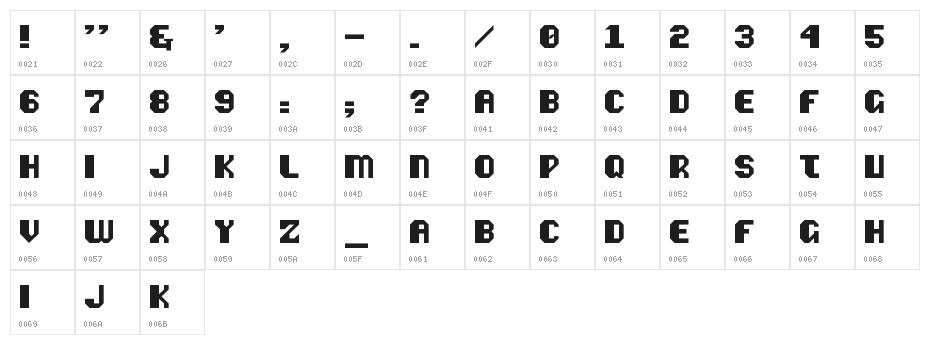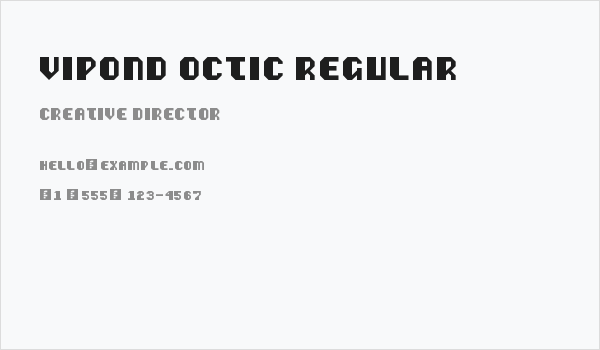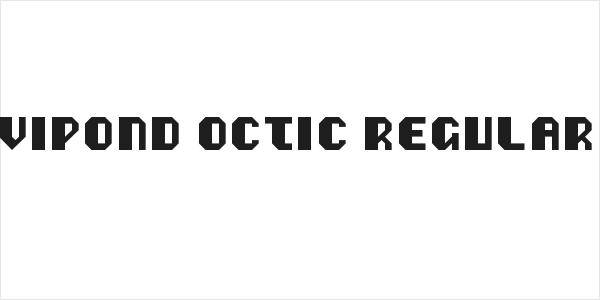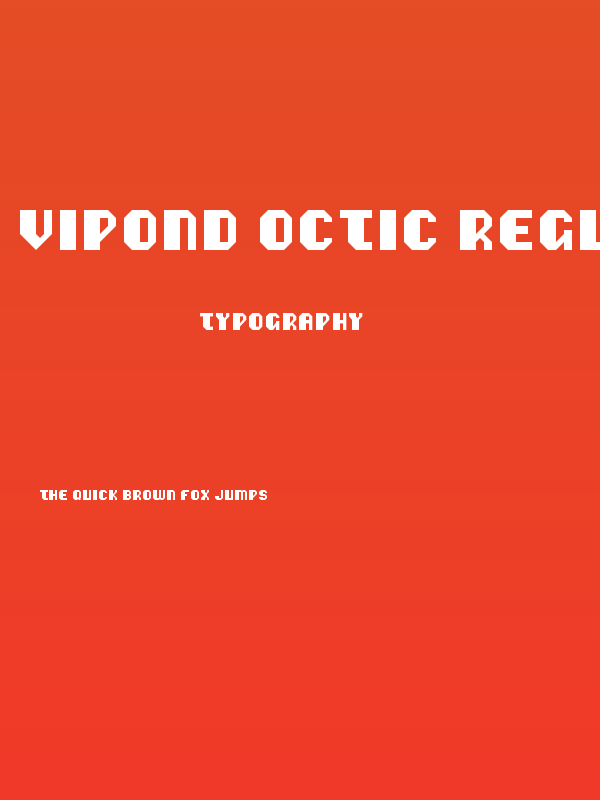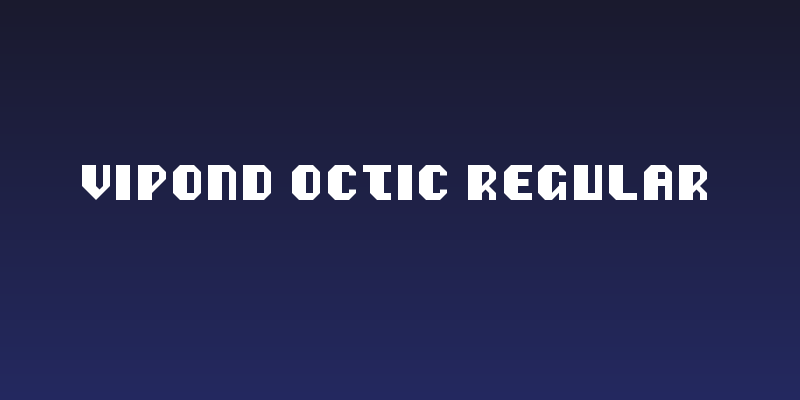
Vipond Octic Regular Font
Vipond Octic Regular Description
This font features a bold, geometric design with a strong emphasis on angular shapes and sharp edges. Each character is constructed with a consistent octagonal form, giving it a distinct, futuristic appearance. The uppercase and lowercase letters maintain a uniform width, contributing to a cohesive and structured look. The numerals and special characters follow the same design principles, ensuring visual harmony across all elements. This font's unique style is both eye-catching and versatile, making it suitable for a variety of creative applications.
| Proposed Projects | Ideal for branding, posters, video game graphics, and sci-fi themed projects. |